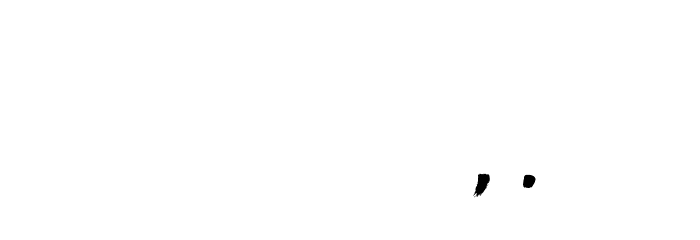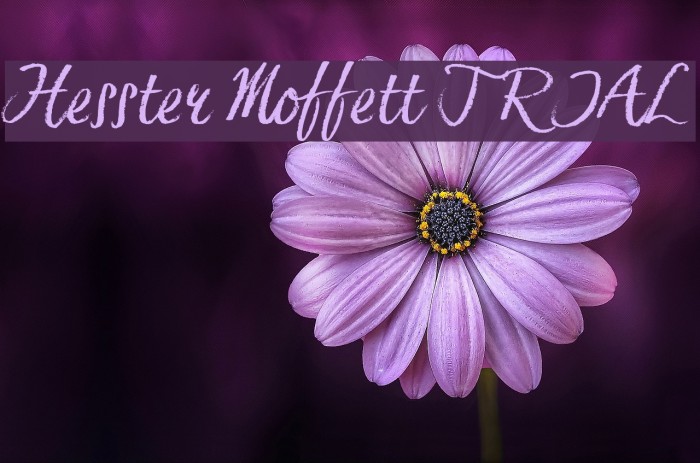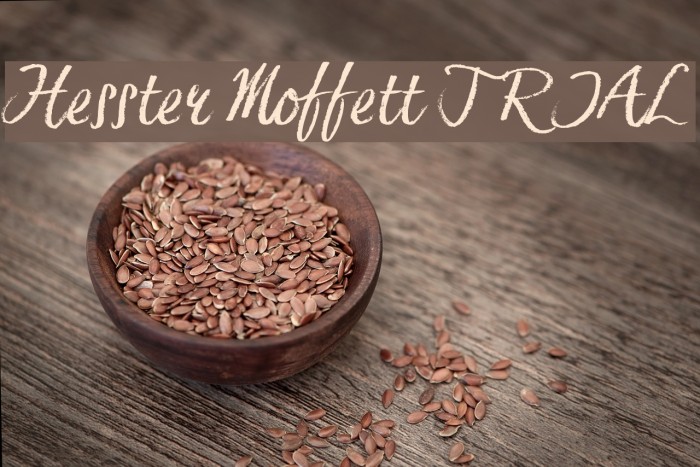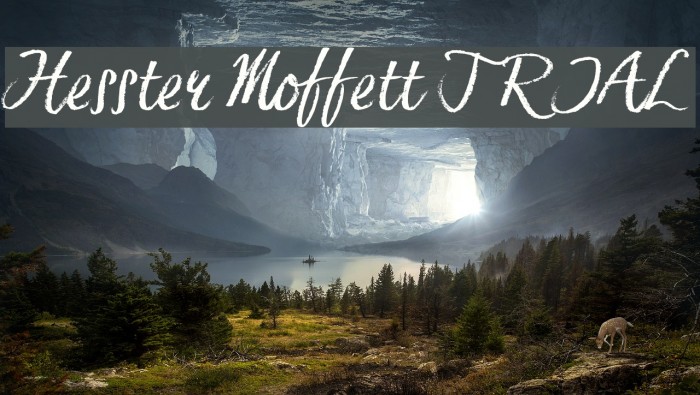
Hesster Moffett TRIAL Font
This font exhibits a dynamic and expressive style, characterized by its brush-like strokes and fluid, cursive forms. The letters have a textured appearance, reminiscent of hand-painted signage, which adds a sense of movement and energy. The uppercase letters maintain a consistent height, while the lowercase letters feature varying ascenders and descenders, enhancing the font's lively and artistic feel. The overall design is both bold and elegant, making it suitable for creative and eye-catching applications.
A dynamic, brush-style cursive font with textured strokes.
- Proposed Projects: Ideal for branding, packaging, posters, and creative design projects that require a bold and artistic touch.